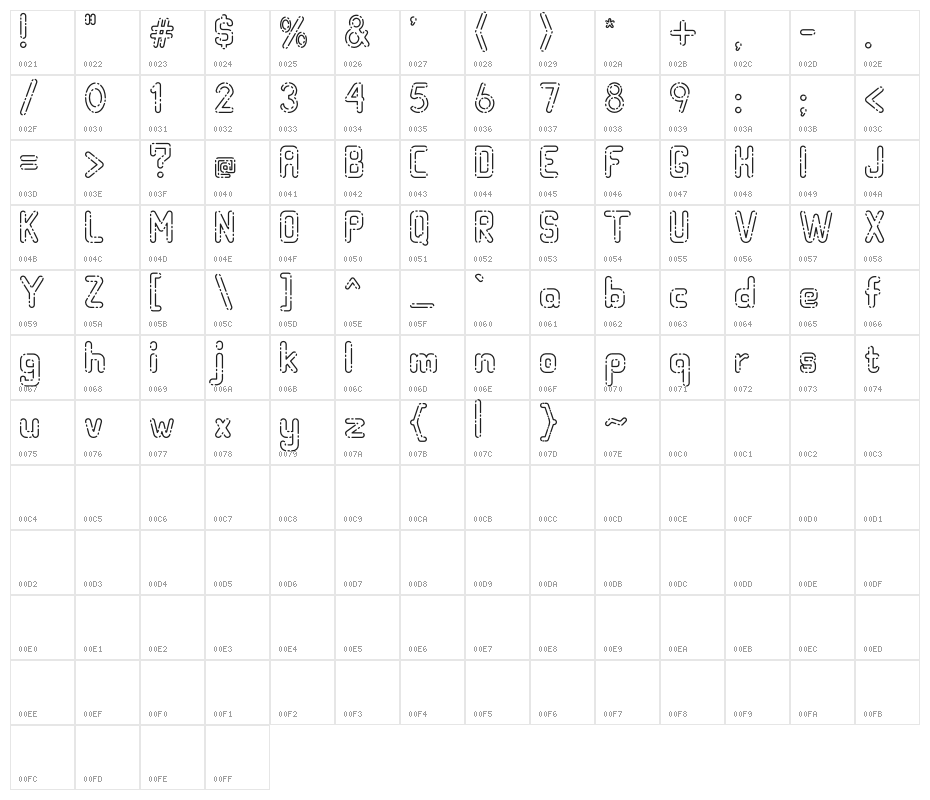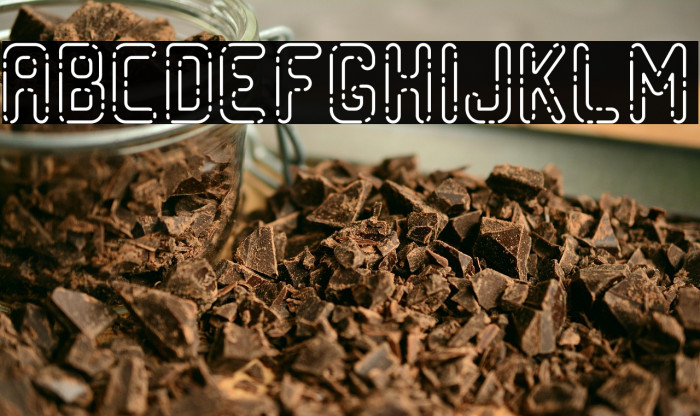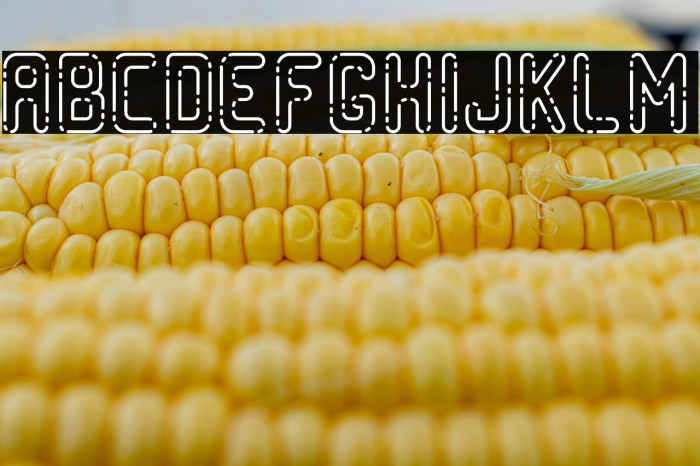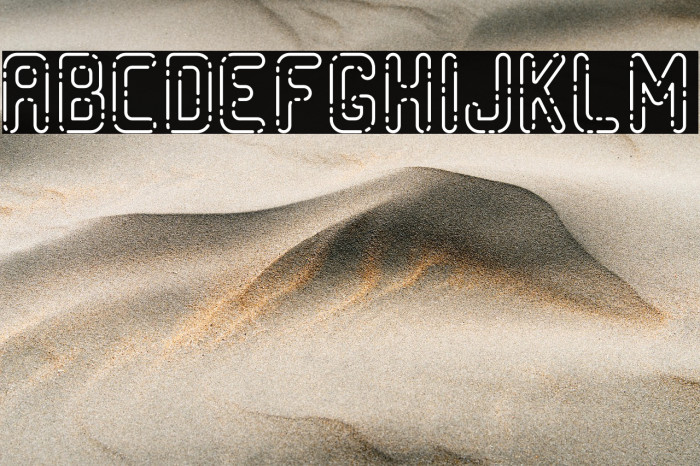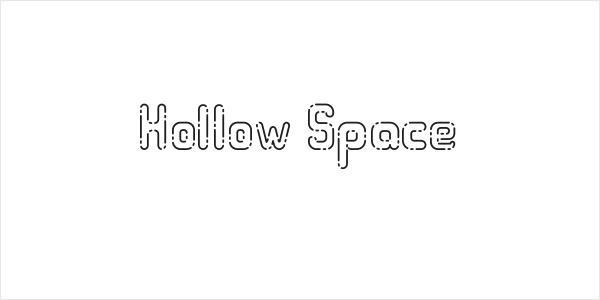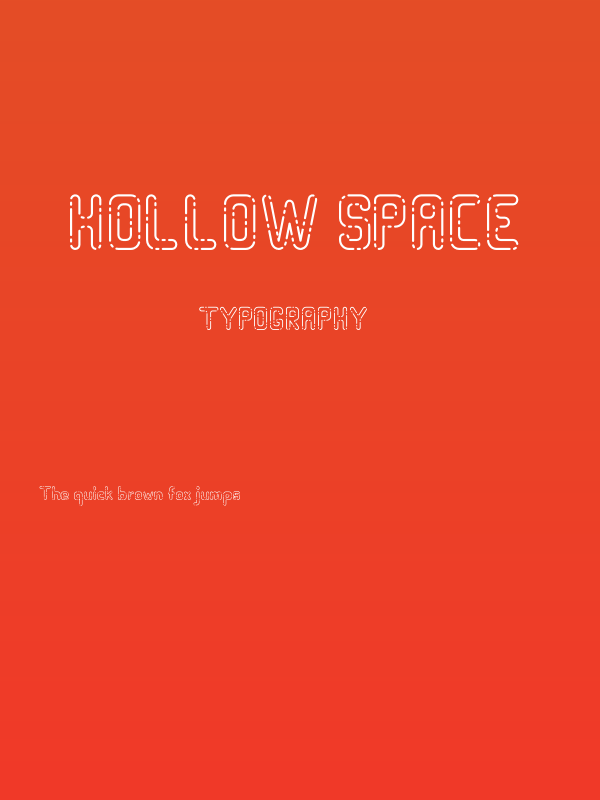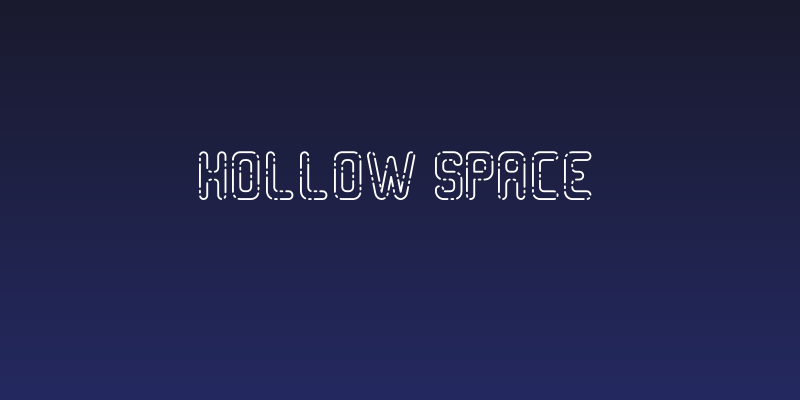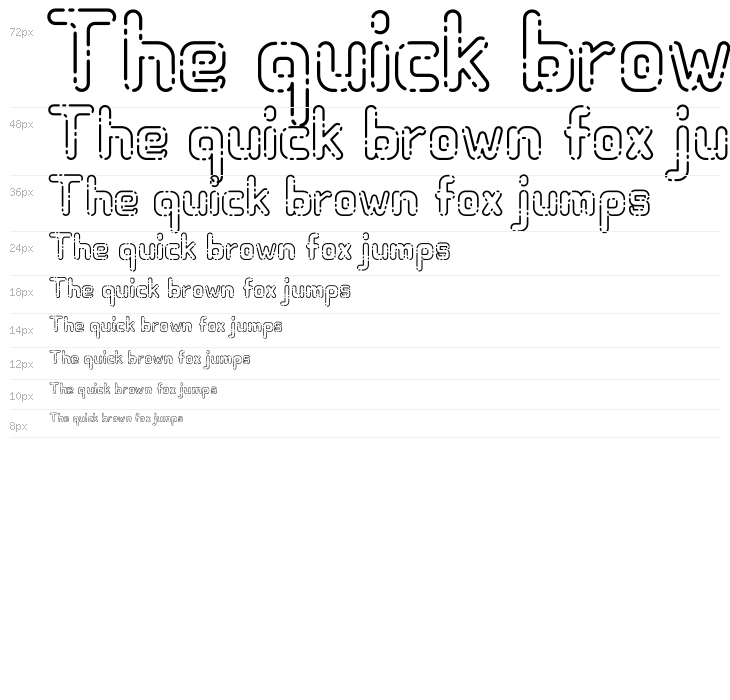
Hollow Space Font
Hollow Space Description
This font features a unique hollow design with a dotted outline, creating a futuristic and tech-inspired aesthetic. Each character is formed with a consistent stroke width, giving it a uniform appearance. The uppercase and lowercase letters maintain a geometric structure, while the numbers and special characters follow the same stylistic approach. The hollow spaces within the characters add a sense of depth and dimension, making it ideal for digital and print media that aim to capture attention with a modern twist.